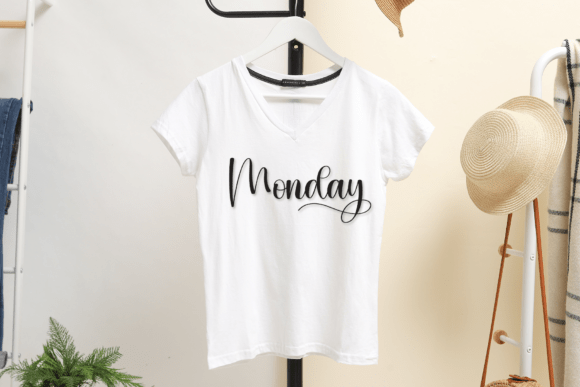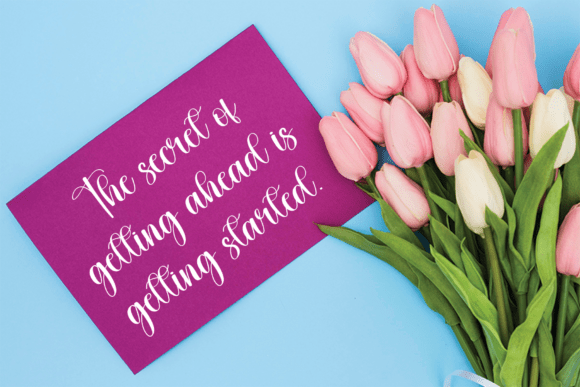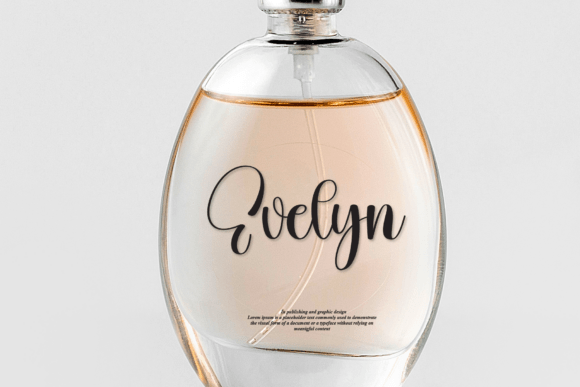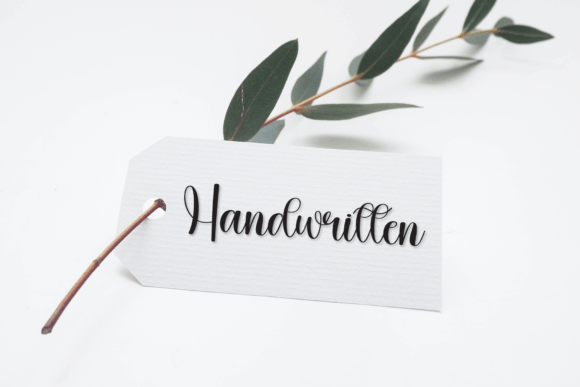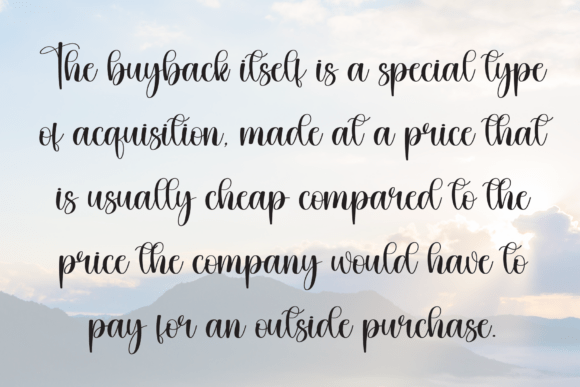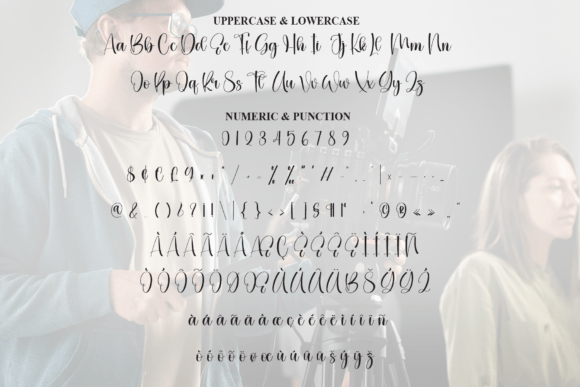
The Ultimate Creative Companion: Unleashing the Power of Casting Font
Have you ever been in the middle of a design project, pouring your heart and soul into it, only to hit a roadblock when searching for that perfect font? I recall a particularly frustrating experience when a client requested a unique, handwriting-style font for their wedding invitations. After hours of scouring the internet, I stumbled upon a font that was almost perfect, but not quite. That’s when I realized the importance of having access to a versatile and creative font library. Today, I’m excited to share with you a game-changing font that has become an indispensable part of my design toolkit: Casting Font.
A Personal Review: What I Love About Casting Font
Casting Font has been a revelation for my design projects. Here are a few things that I absolutely love about it:
• ✨ Extraordinary Experience: The latest style letters are perfect for adding a touch of elegance and sophistication to any project.
While Casting Font has been a fantastic addition to my design toolkit, there are a few minor quirks to be aware of:
• 🤔 Learning Curve: As with any new font, there may be a slight learning curve to get familiar with the various glyphs and stylistic alternates.
• ⚠️ Glyph Limitations: Some users may find that certain glyphs or special characters are not available. However, the font team is actively working to expand the glyph library.
The Story Behind Casting Font
Casting Font was created with the goal of providing designers with a versatile and creative font that can be used in a variety of projects. The font’s design is inspired by the latest trends in handwriting and lettering, with a focus on elegance, sophistication, and playfulness. Whether you’re working on a wedding invitation, social media post, or product packaging, Casting Font is the perfect choice.
Is Casting Font suitable for body text? While Casting Font is a beautiful font, it’s best suited for display text or headings. For body text, you may want to choose a font with better readability.